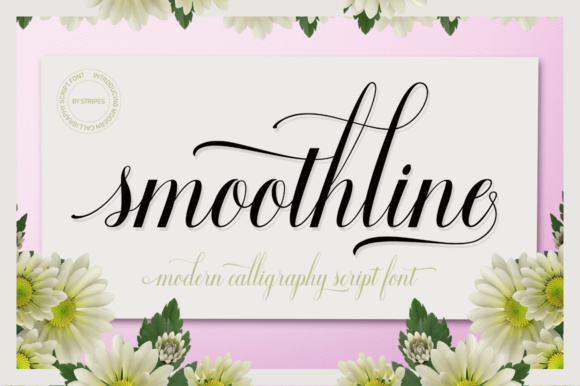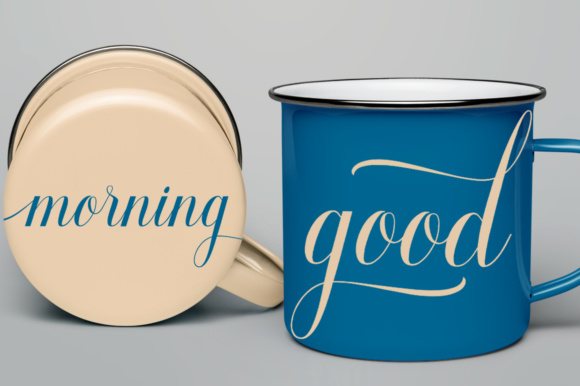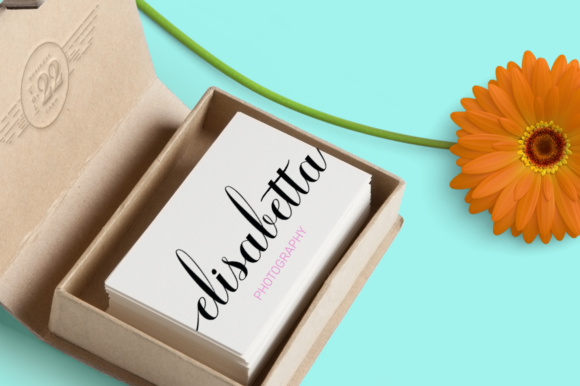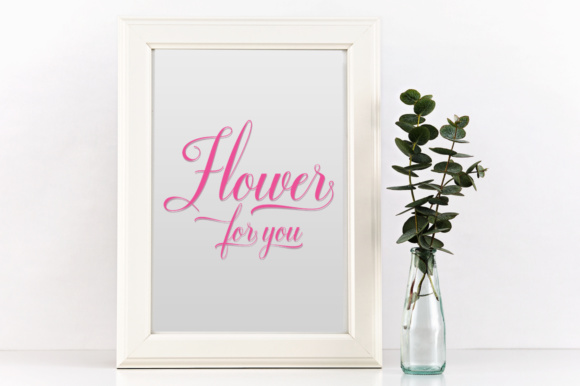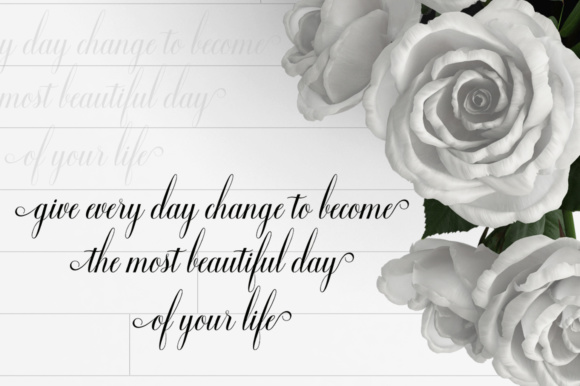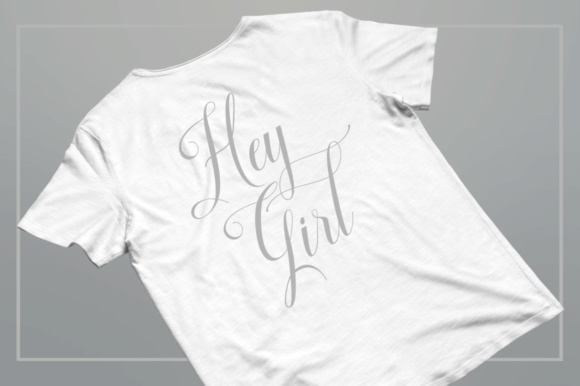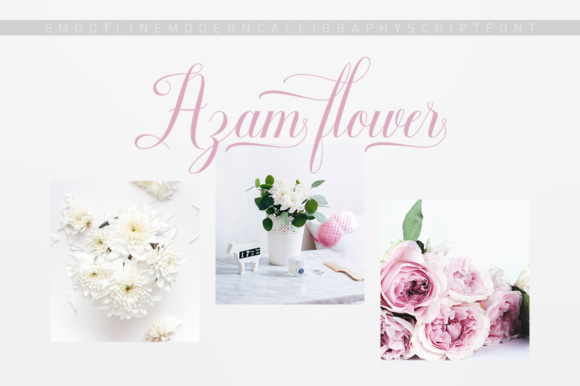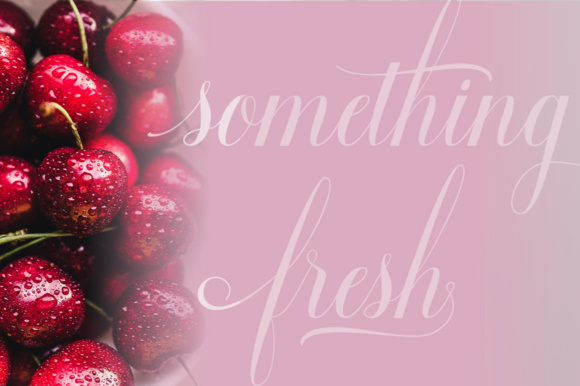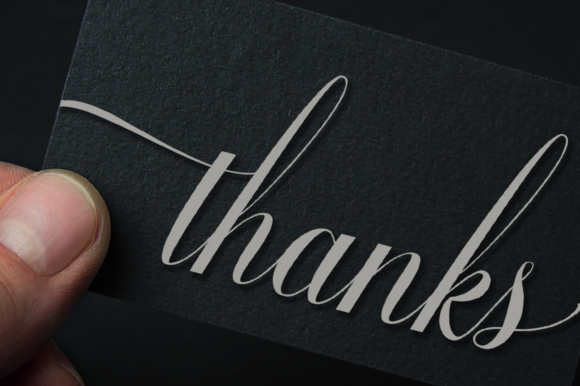
Smoothline Script Font
About Smoothline Script Font
The Smoothline is a modern handwritten script. It’s easy to use and has a great readability. Perfect for branding designs!